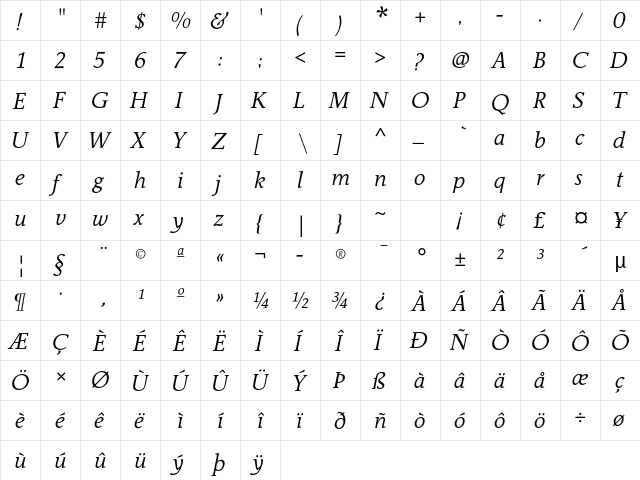
Jante Antiqua Std Italic
| Designer | Poul Sn |
Design Context for Jante Antiqua Std Typeface
Jante Antiqua Std offers clean, dependable letterforms without strong stylistic allegiance, making it a practical choice for designers who need flexibility. Its italic angle brings a sense of urgency and motion to the letterforms.
Pro Tip: Try Jante Antiqua Std for annotation and caption copy alongside an upright companion — the contrast in angle creates a dynamic but ordered typographic system.